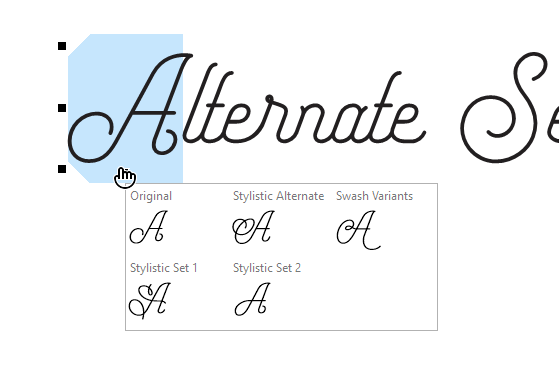
Alternates or New Font for cross bar (horizontal stroke) variations
I am looking for some advice on best practice for supplying alternates with a different horizontal stroke (cross bar) height.
For example: a new all-caps gothic grotesque font, the horizontal stroke bounces up and down above and below the horizontal centerline. I put alternate glyphs with centered horizontal strokes in the lower case.
Alternately, I could make three new fonts:
• bar above centerline
• bar below centerline
• bar centered
What do you do? What has worked better for you? What have your clients preferred? I recognize new weights x 3 different font files can make this unwieldy pretty quickly.
I would add the alternates to 2 different stylistic sets. That handles all the various layout, vector graphic and most image editing software, as well as Word users.
I also add them to an aalt so that some vector editing software, and now InDesign and some others, one can simply highlight a character and choose an alternative. Each alternate, in your case,2 alternates, are then presented for choosing from for that character(s) when applicable.
If someone is using old(er) software and complains, then I would generate the separate fonts for their use. That hasn’t been needed for some time for me. During a transitional period, it was common to generate the OTF = everything version, and break out the others into TTFs. But that’s been a long while for me.
I use a spreadsheet to create these, but the Alternate look up is formatted like:
lookup Alternate1 {
sub E → [E.salt E.swsh E.ss01 E.ss02];
sub F → [F.salt F.swsh F.ss01 F.ss02];
sub G → [G.salt G.swsh G.ss01 G.ss02];
sub H → [H.salt H.swsh H.ss01 H.ss02];
}
The manner in which an application presents these alternates vary greatly. The below screen shot is from CorelDraw, which I would argue for a vector design application is best in class.